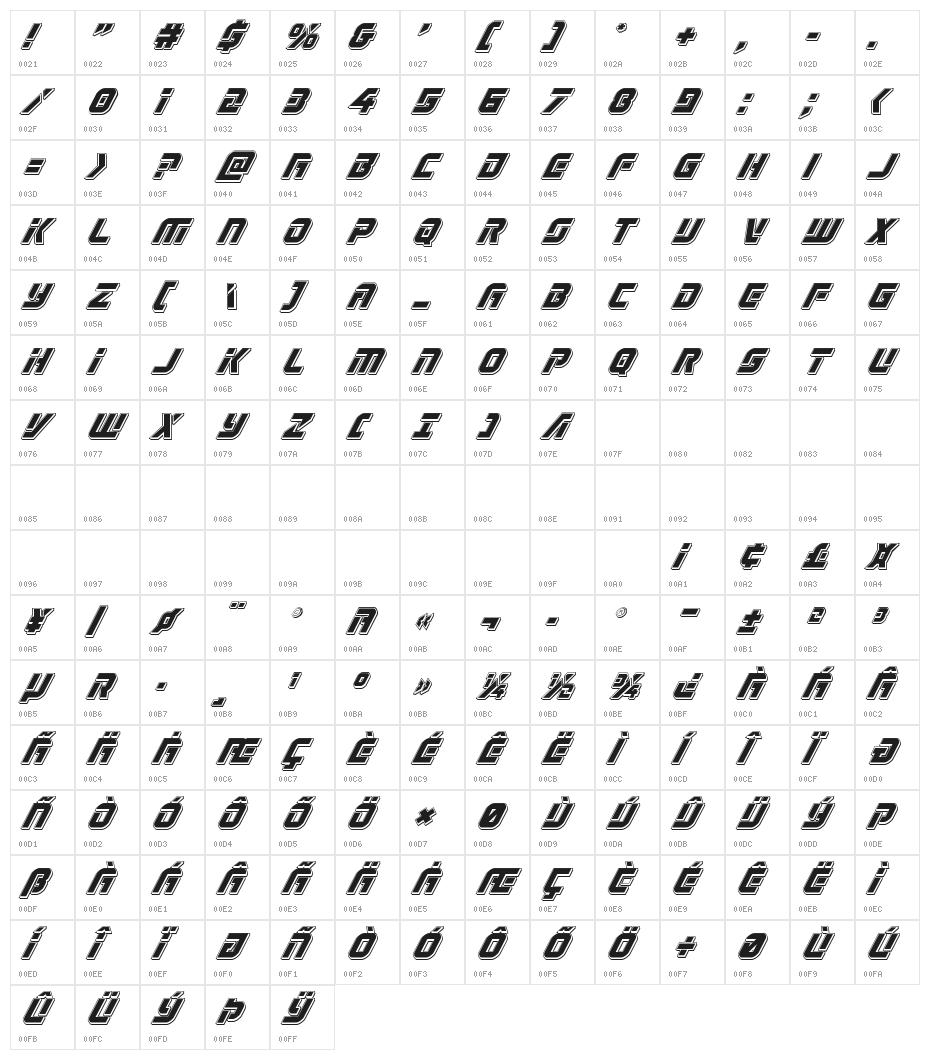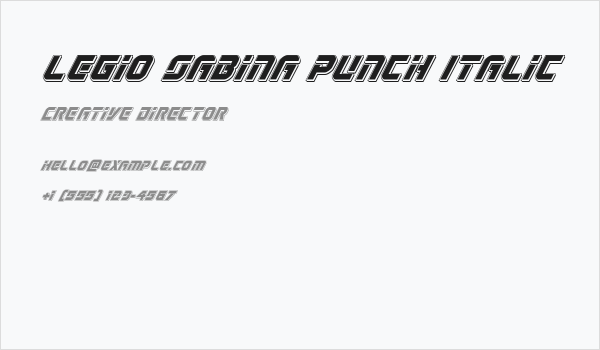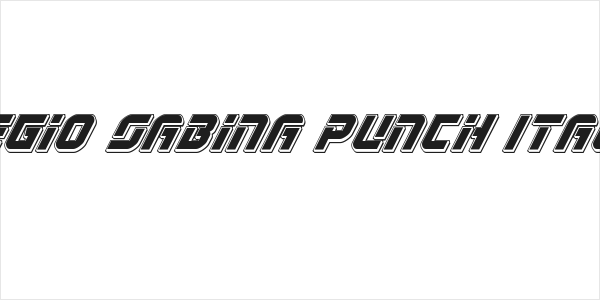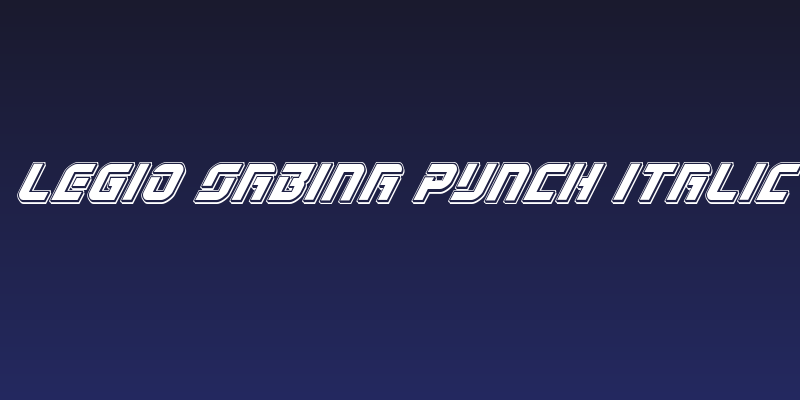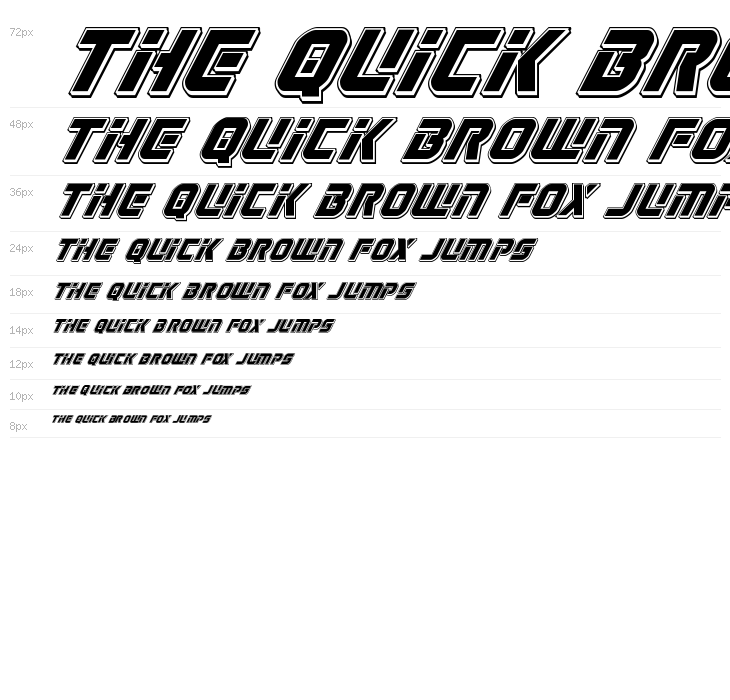
Legio Sabina Punch Italic Font
Legio Sabina Punch Italic Description
This font features a bold, dynamic style with a strong italic slant, giving it a sense of motion and energy. The characters are outlined with a thick border, creating a striking contrast between the inner and outer edges. The design is geometric with sharp angles and clean lines, making it highly legible while maintaining a unique and modern aesthetic. The uppercase and lowercase letters are consistent in style, and the numerals and special characters follow the same design principles, ensuring uniformity across all glyphs. This font is ideal for projects that require a bold statement and a contemporary look.
| Proposed Projects | Ideal for sports branding, dynamic posters, futuristic designs, and video game titles. |